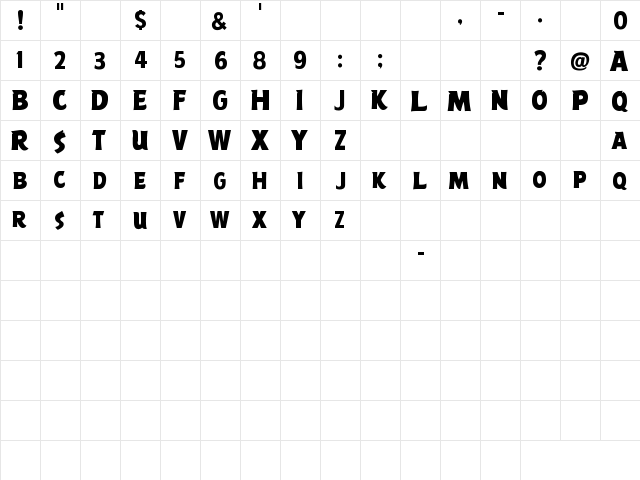
Angry Birds Movie Regular
Design Context for Angry Birds Movie Typeface
Angry Birds Movie is a composed and adaptable typeface that performs quietly and consistently across a wide range of design contexts.